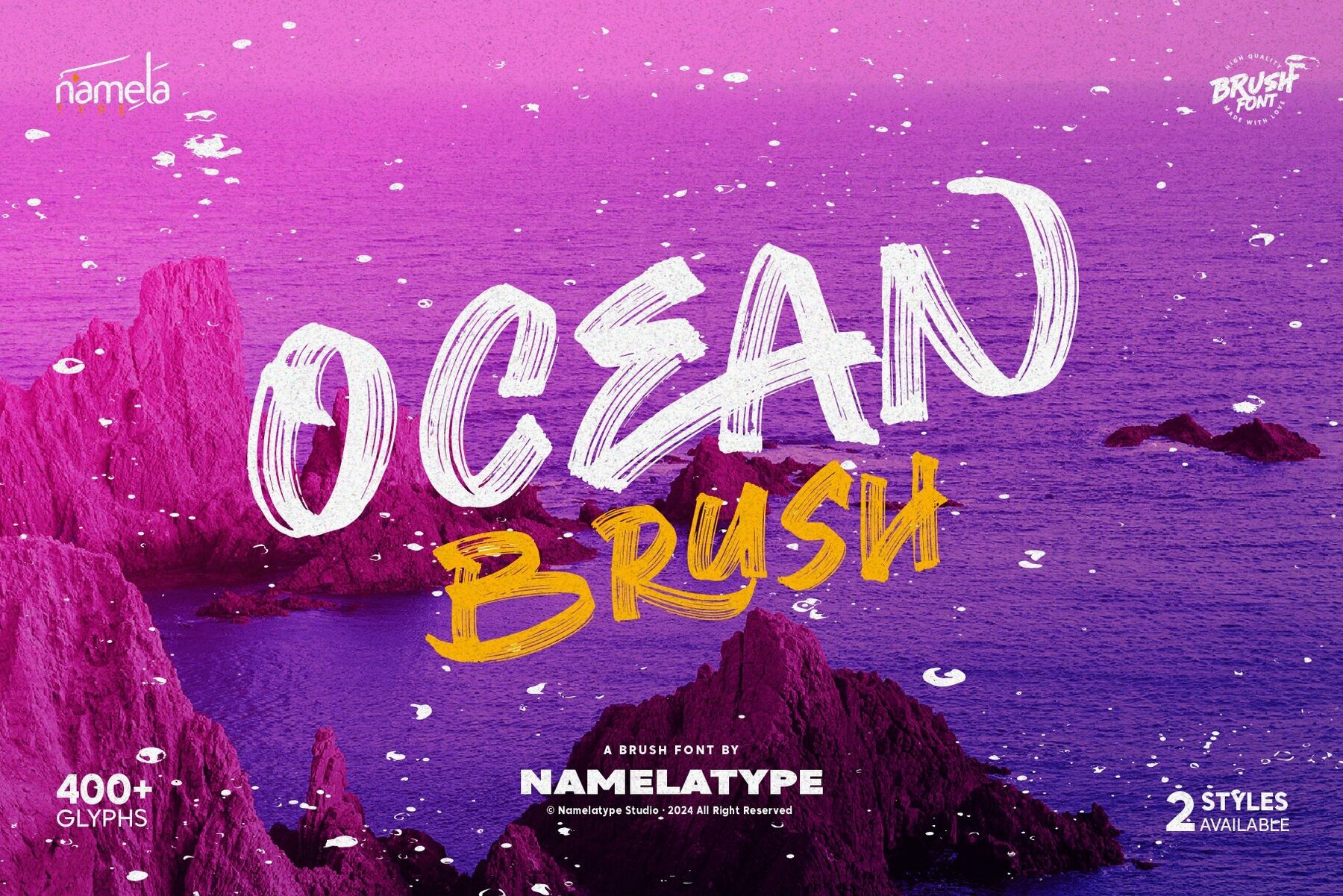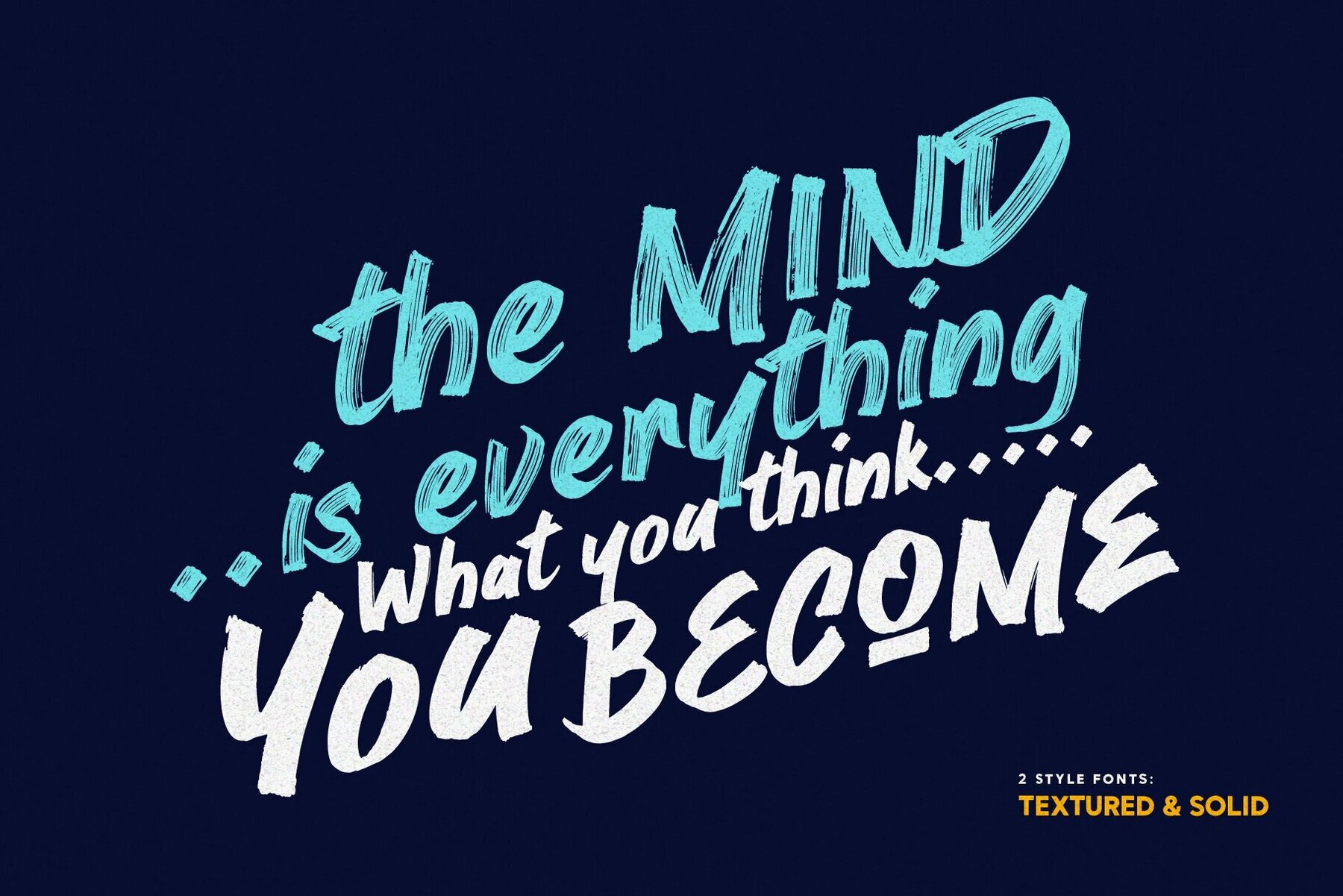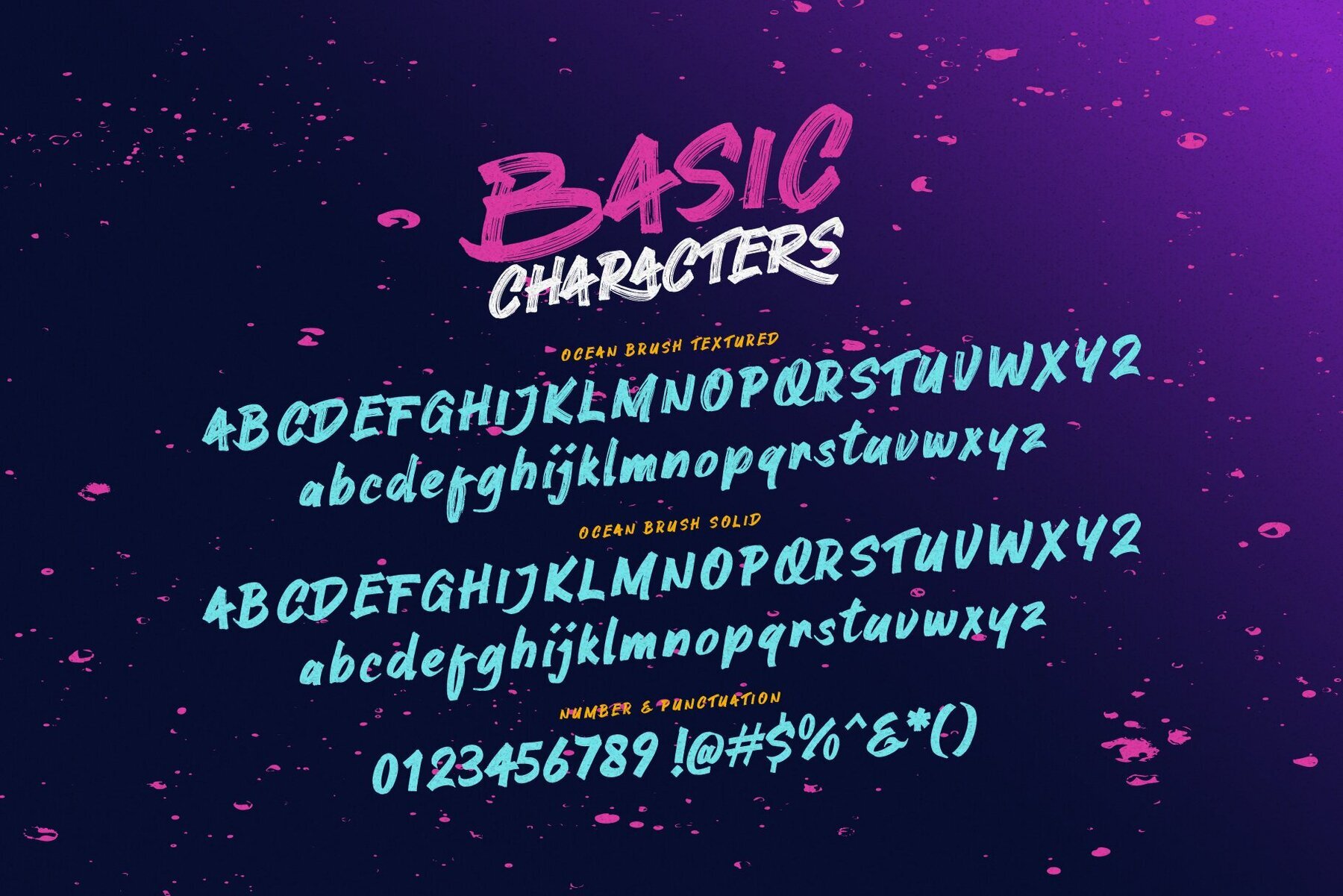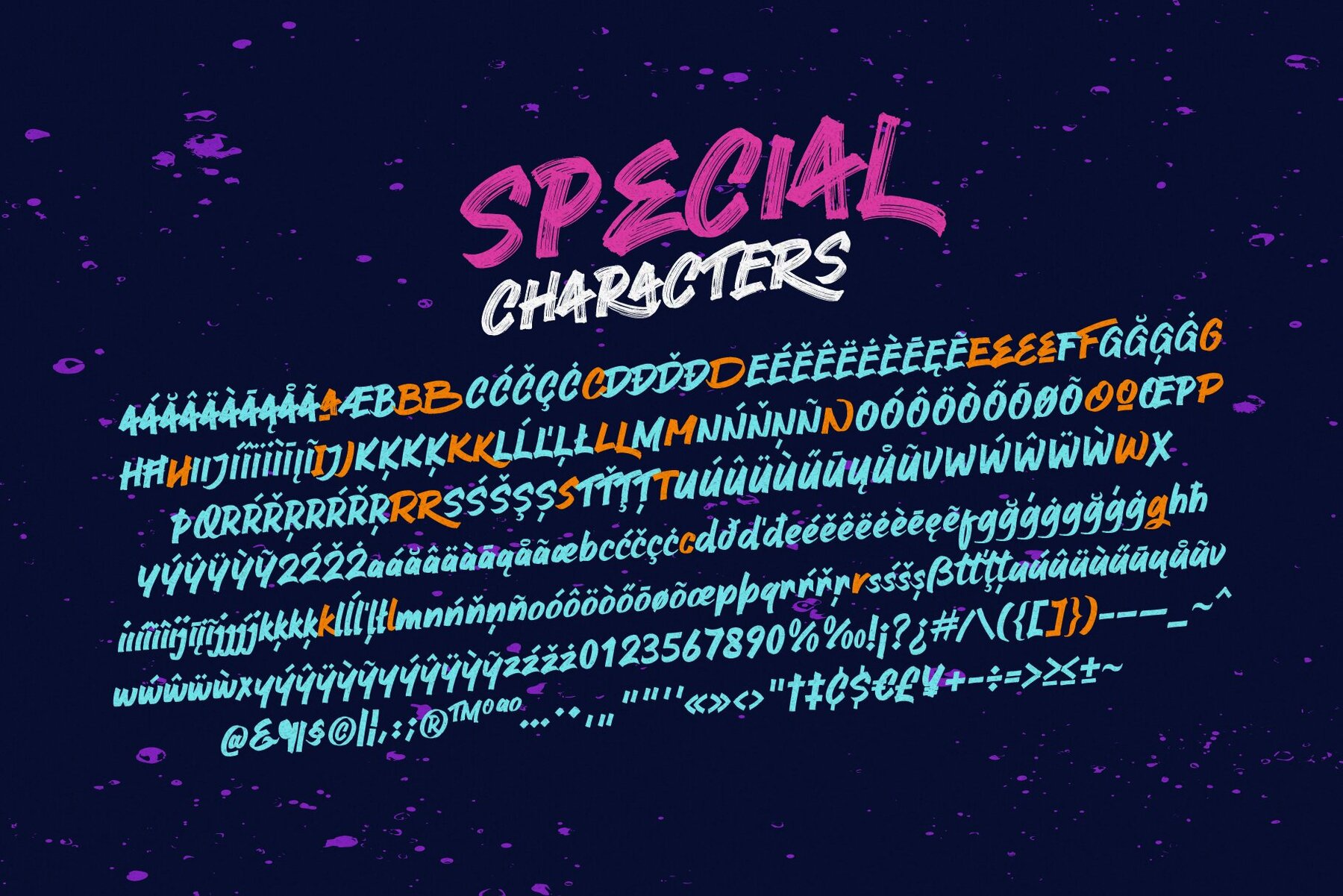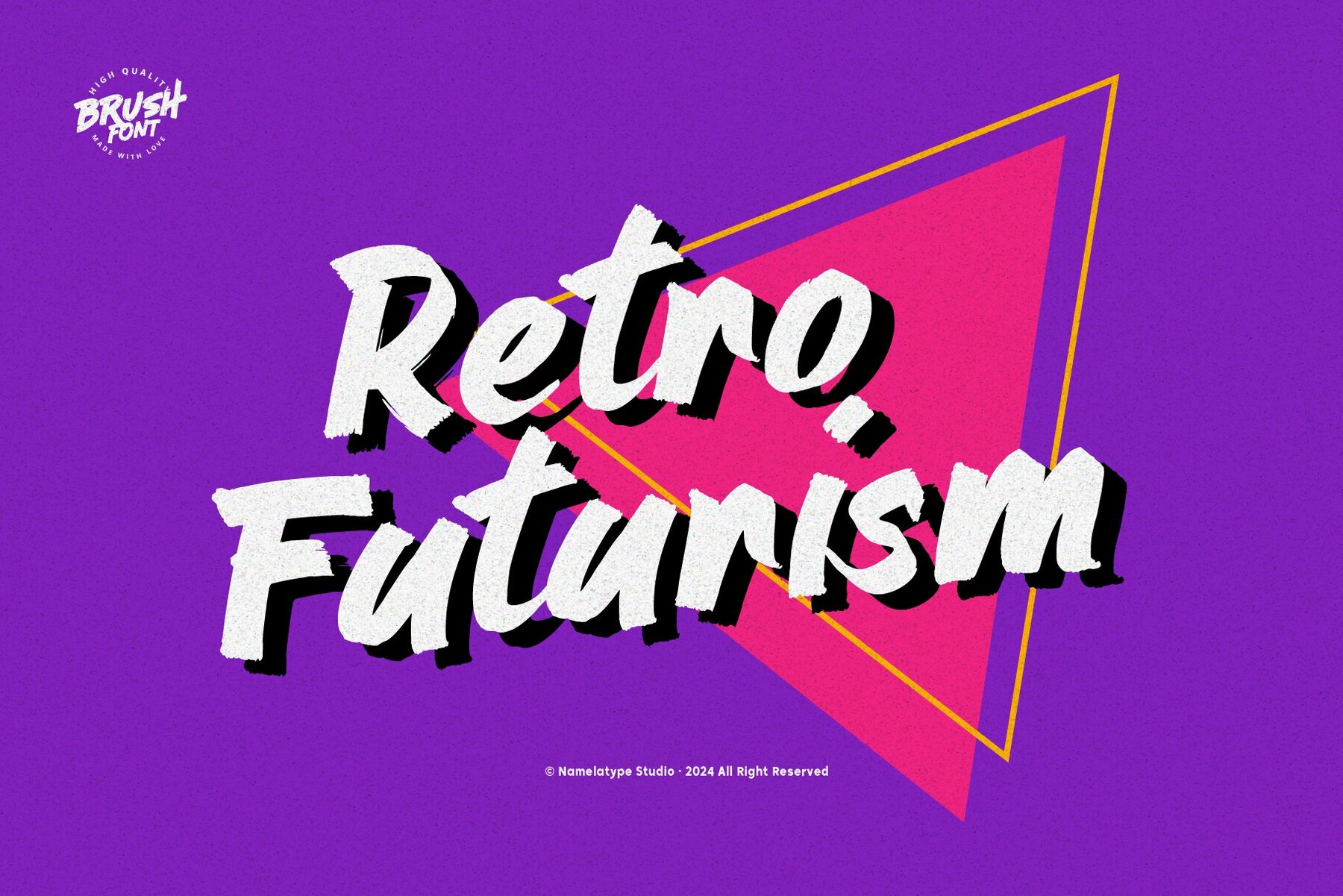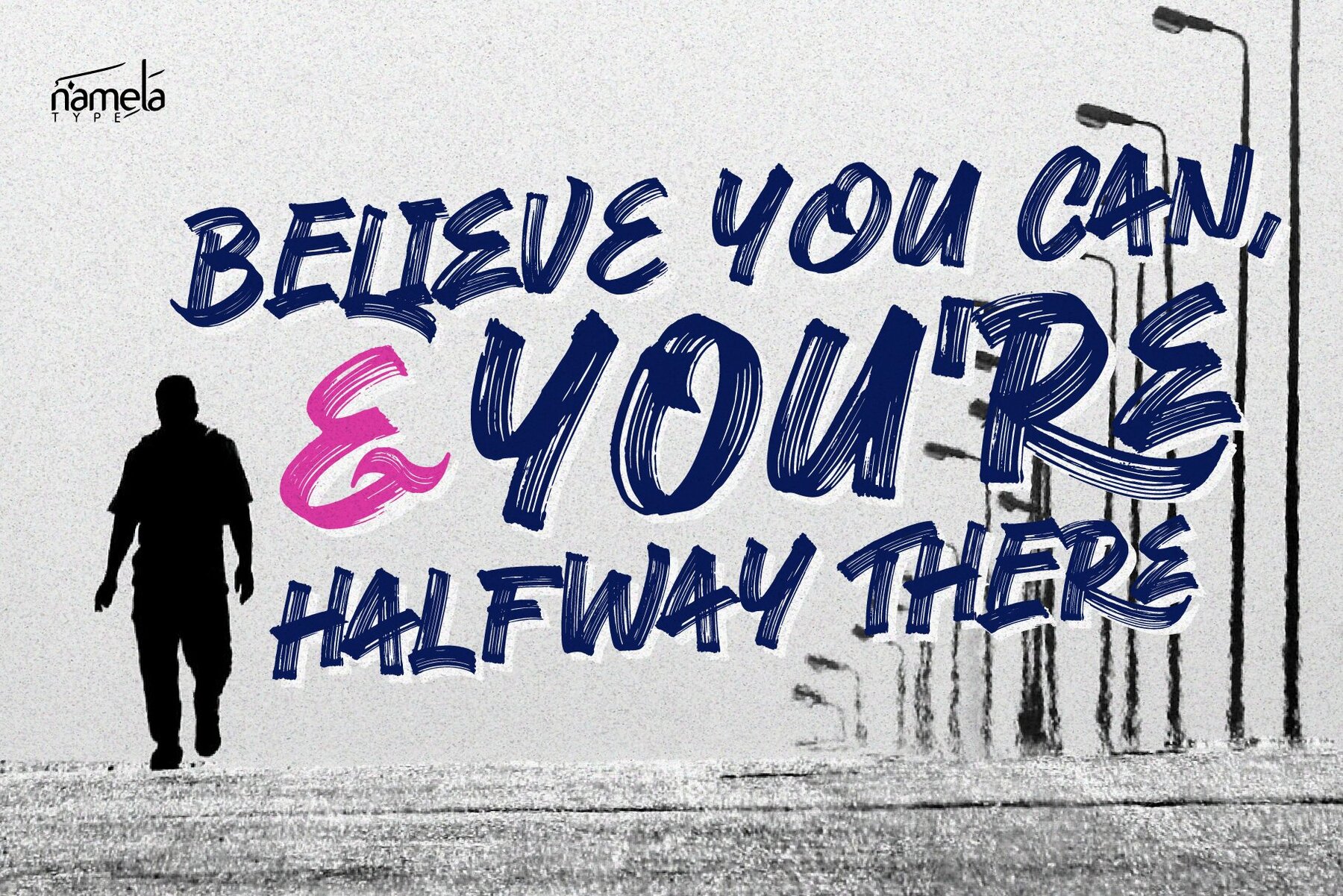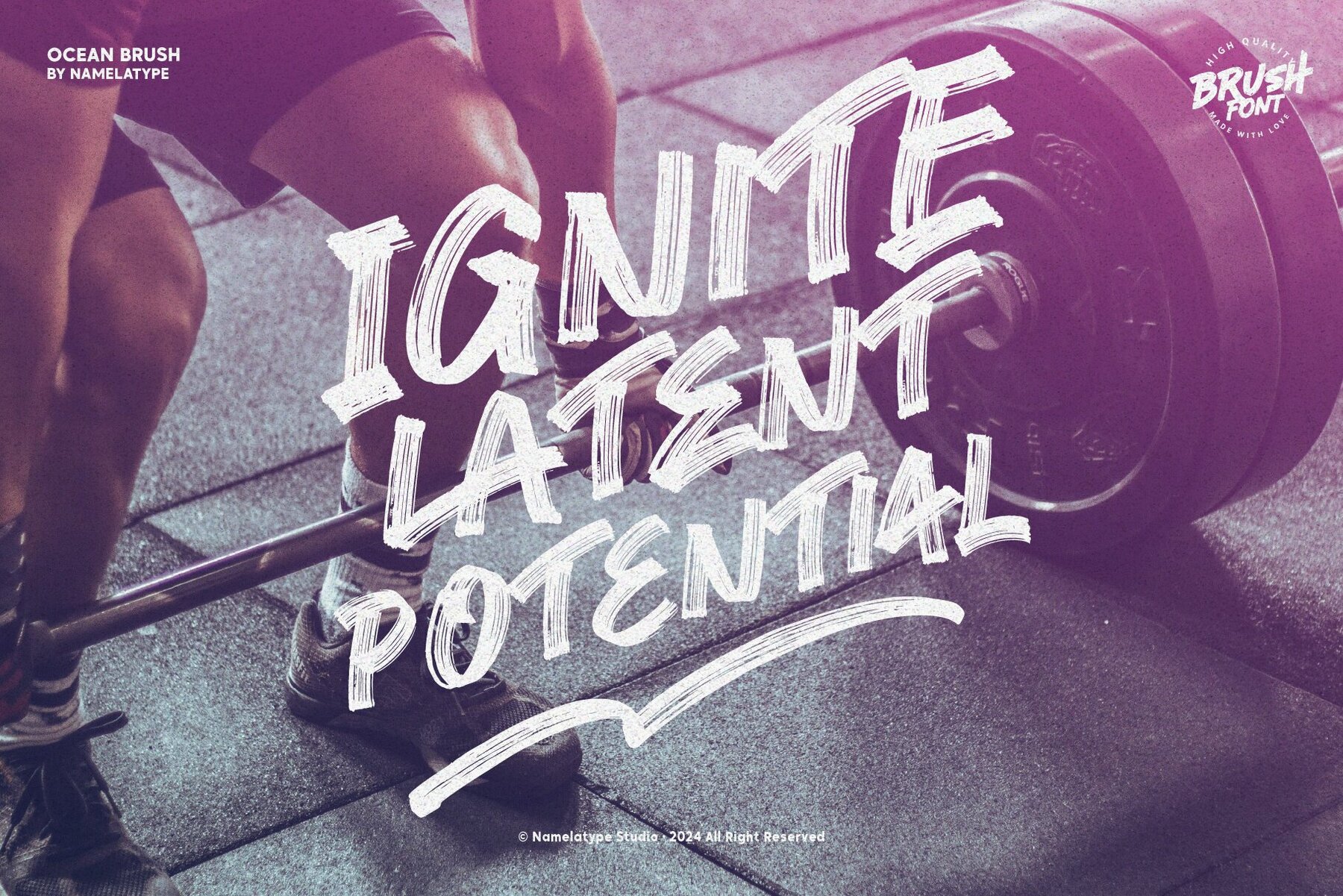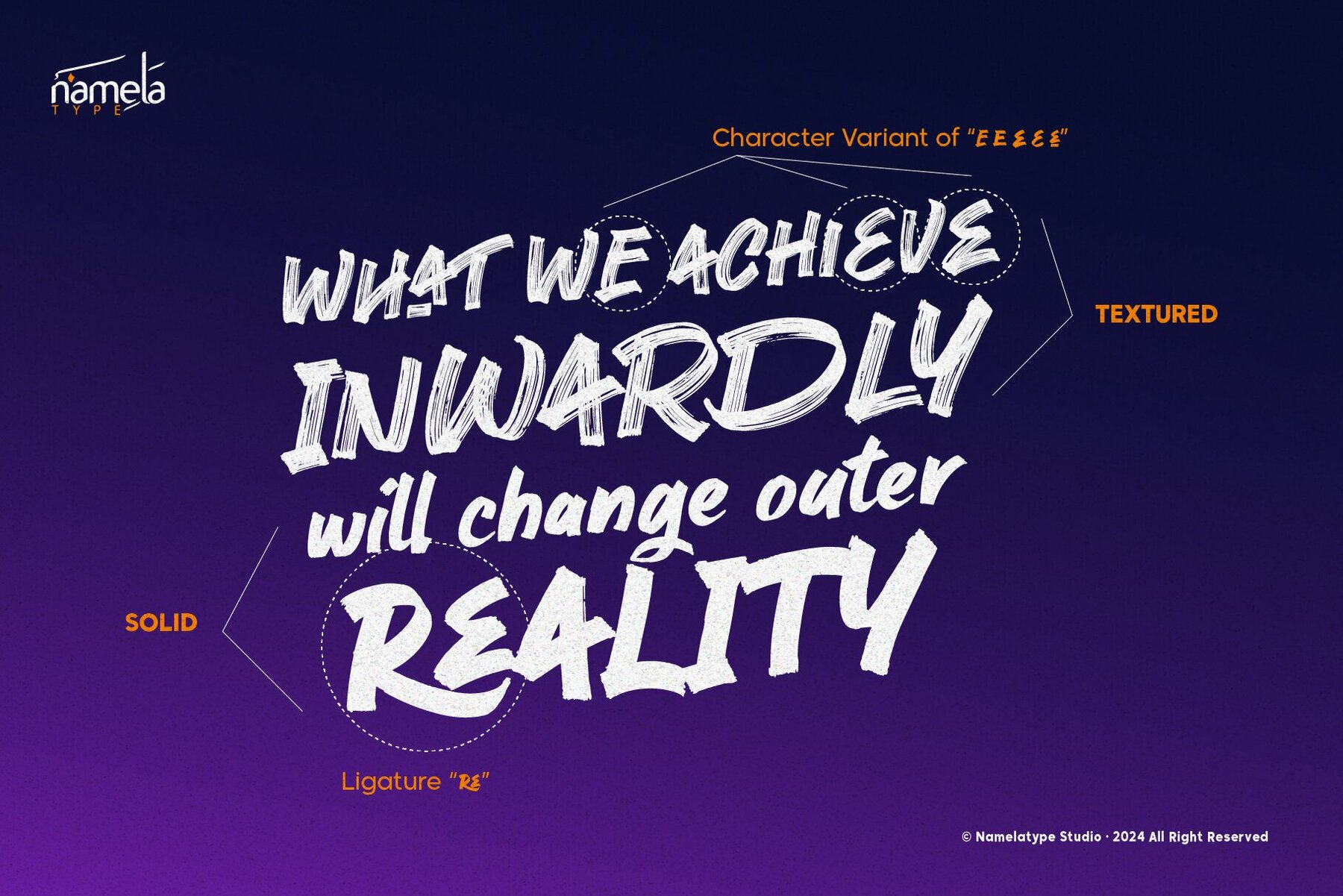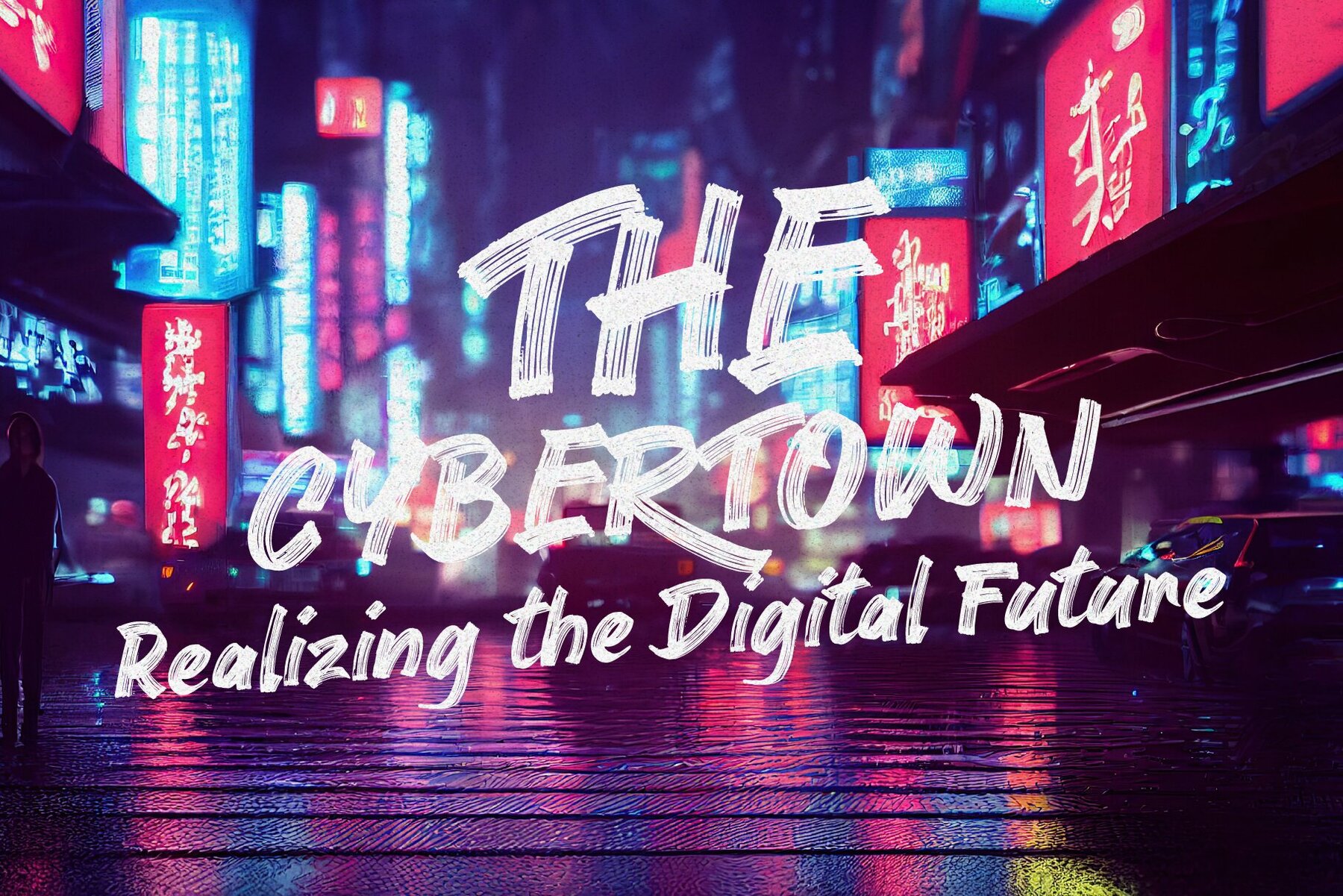
Ocean Brush Font
The Ocean Brush is a handwritten brush font inspired by the dynamic and free movement of waves. Each stroke in this font captures the strength of nature, providing a natural and expressive artistic touch to your designs. This font stands out for its ability to convey both the tranquility and power of the ocean, creating a versatile tool for a wide range of creative applications. The Ocean handwritten brush font is perfect for creative projects such as posters, logos, product packaging, and social media content that require a fresh and energetic aesthetic. Whether you’re designing a bold and adventurous poster or an elegant and contemporary logo, Ocean Brush adapts to fit the mood and tone you wish to convey. Its unique character can add a touch of natural elegance to product packaging, making your brand stand out on the shelves.